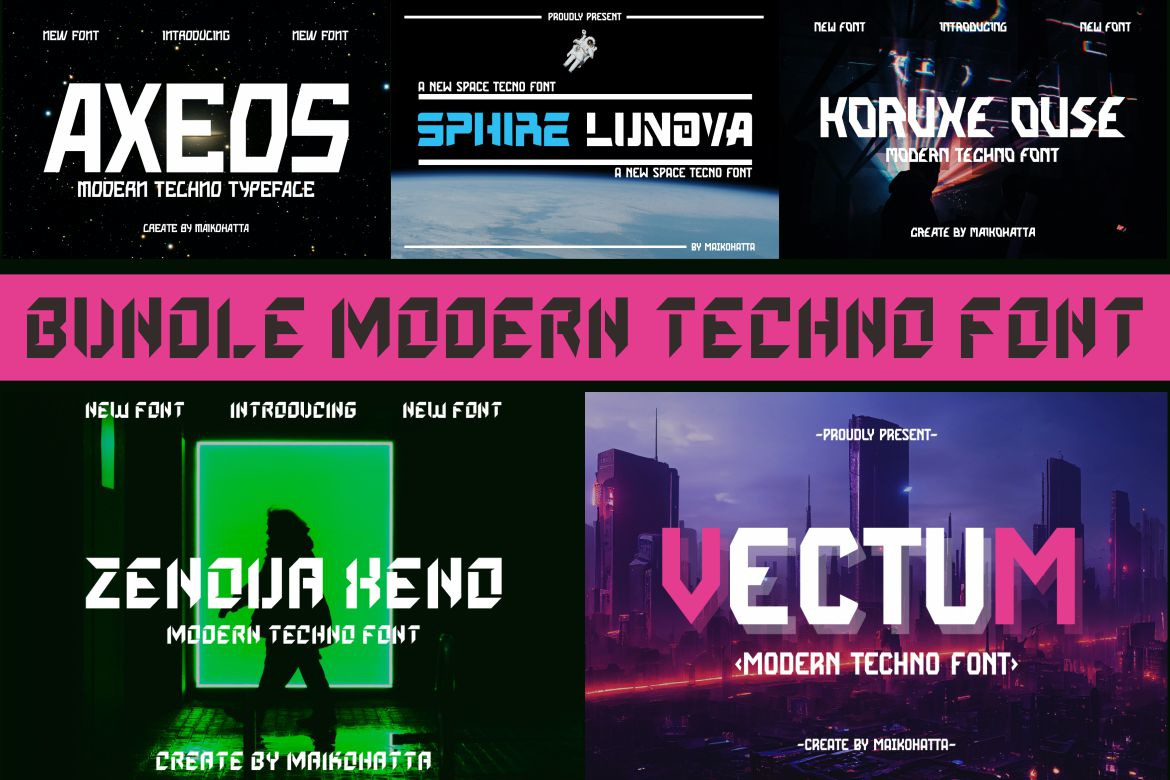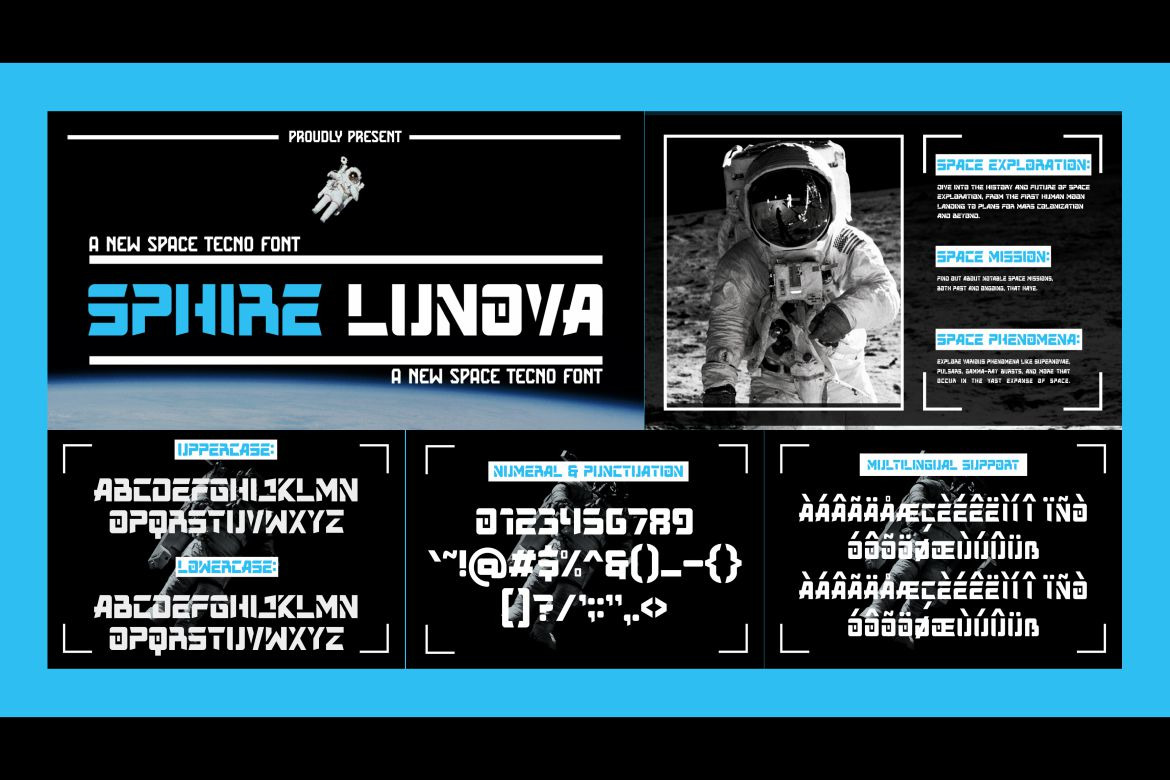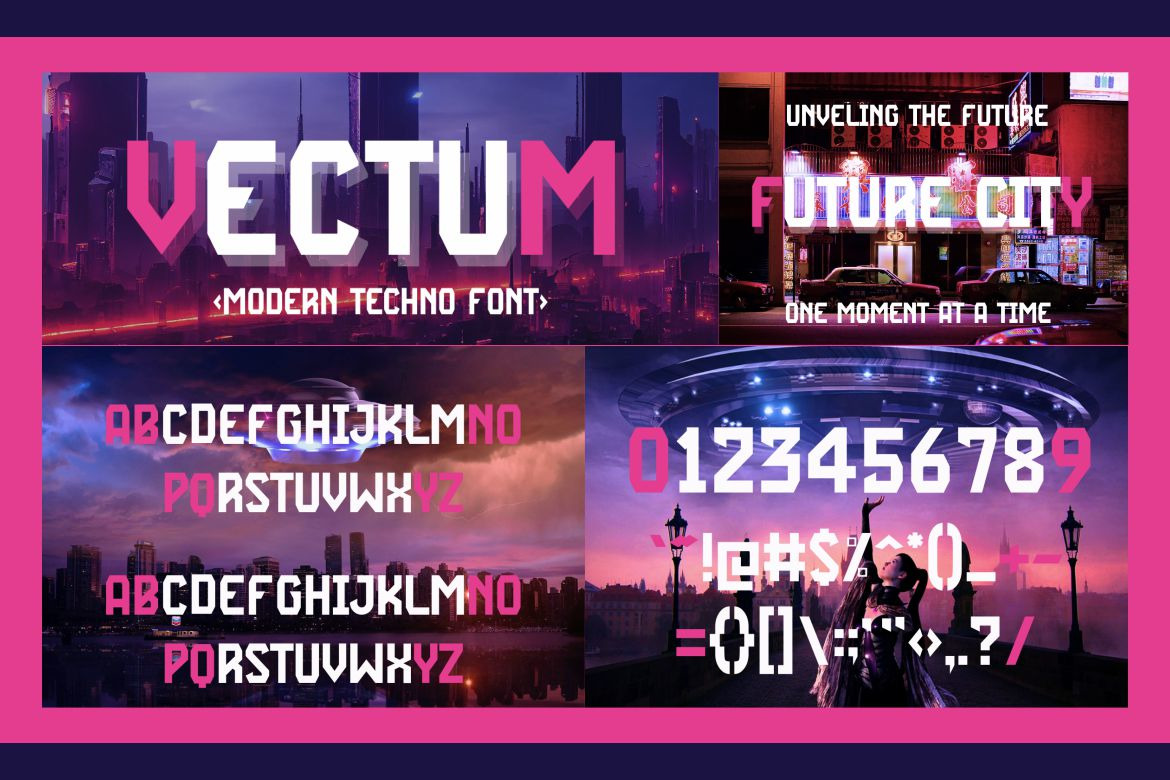
Bundle Modern Techno Font
**Bundle Modern Techno Font**
This Font is a type of lettering that features a futuristic design inspired by advanced technology. This font reflects the digital era and technological advancements, bringing a sense of modernity, innovation, and energy to any design. With sharp lines, geometric letter shapes, and futuristic elements, this font is suitable for projects related to technology, robotics, science, and modern lifestyle. This font are often found in logos, website designs, posters, and other creative projects that require a futuristic touch.
* Multilingual ( Korukeouse, Sphire Lunova, Zenova Xeno )